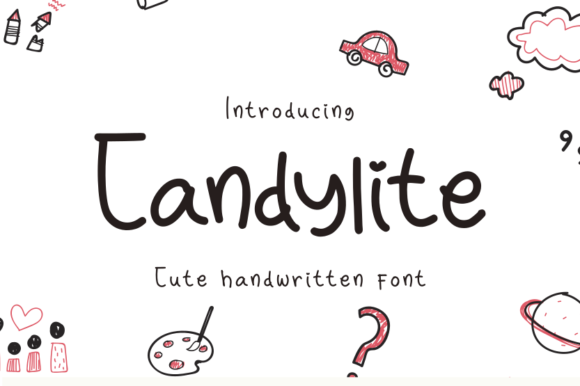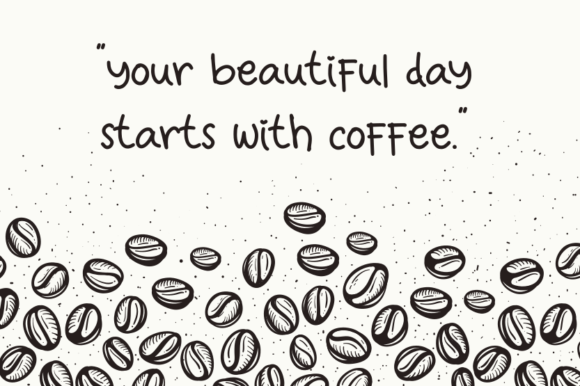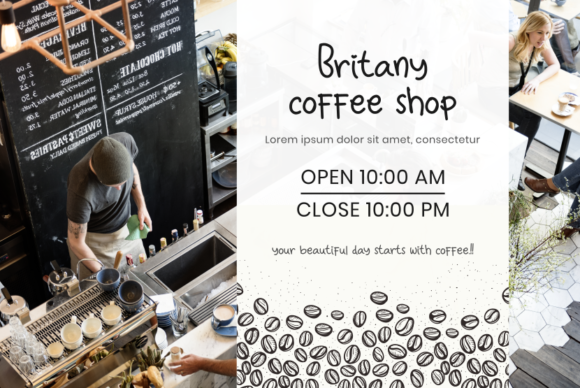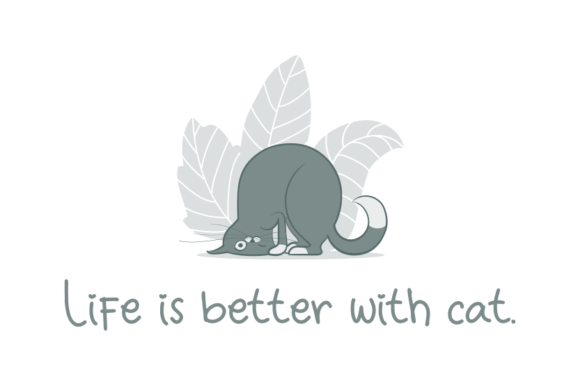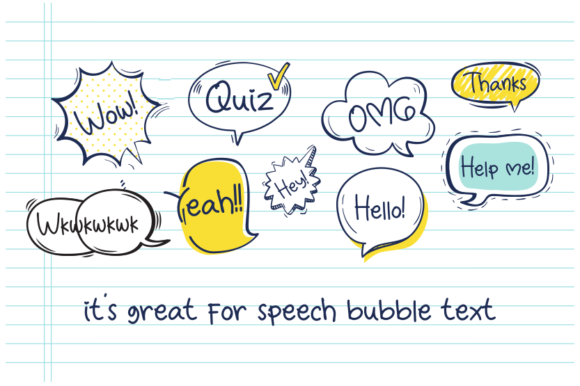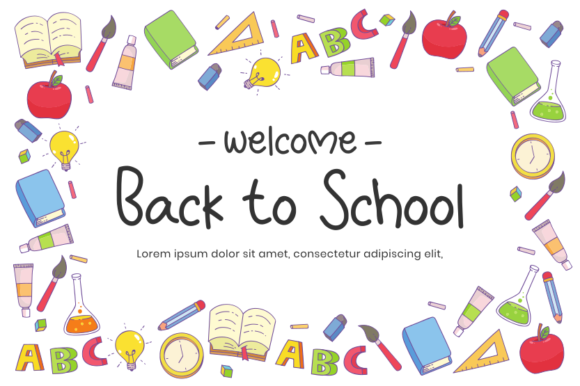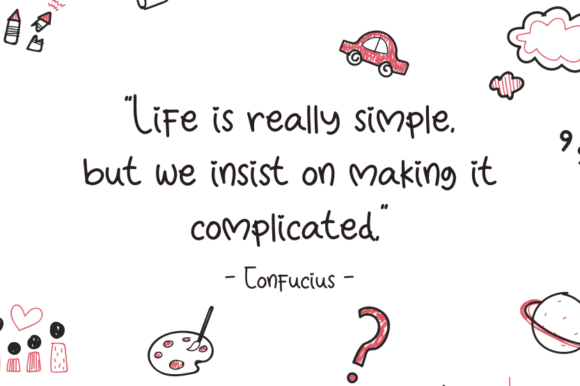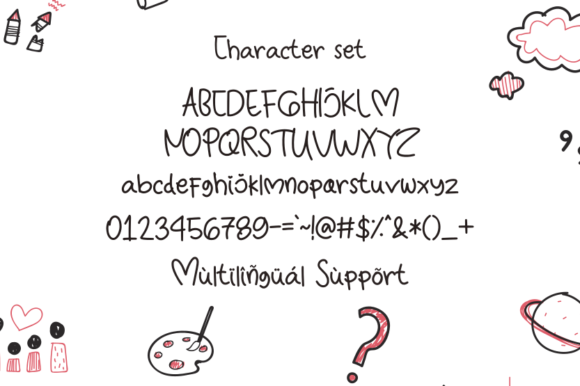
Candylite Font
About Candylite Font
Candylite is a cute and quirky handwritten font. Embodying fun and authenticity, this font is incredibly versatile, fitting a wide range of designs. Brighten up each of your kids or school project with Candylite!